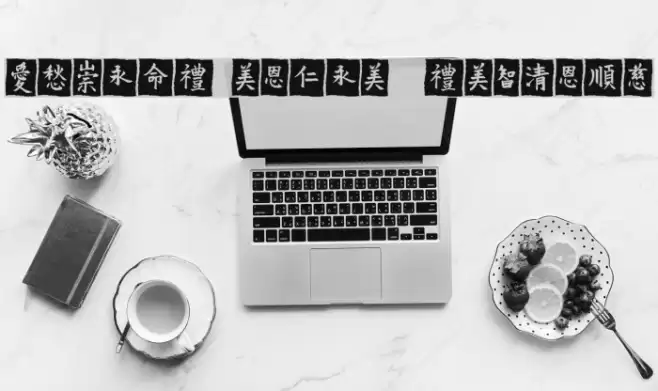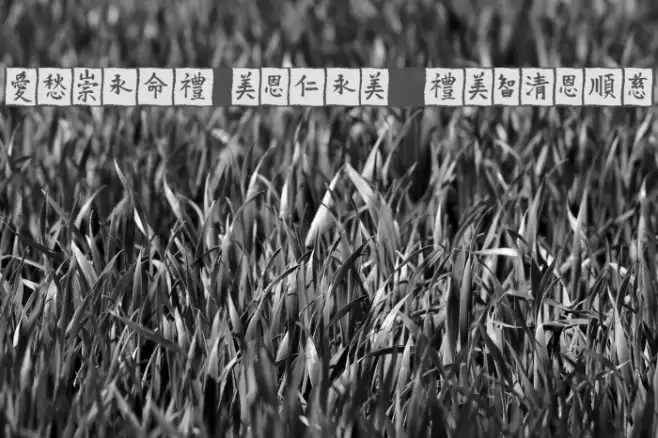
VTMeiOrnamentsOnBlack Font
VTMeiOrnamentsOnBlack Description
This font features a traditional and artistic style, reminiscent of classic East Asian calligraphy. Each character is enclosed in a rough, square border, giving it a distinct, hand-crafted appearance. The strokes are bold and expressive, with varying thickness that adds a dynamic and lively feel. The characters are well-spaced, allowing each to stand out individually while maintaining a cohesive look. This font embodies a sense of cultural heritage and artistic expression, making it suitable for projects that aim to convey tradition and elegance.
A traditional, calligraphic font with bold, expressive strokes and a hand-crafted appearance from Dingbats fonts.
- Proposed Projects: Ideal for cultural projects, artistic designs, traditional event invitations, and decorative purposes.
- Overall Style: Traditional, Artistic
- Use Case: Decorative, Artistic projects, Cultural displays